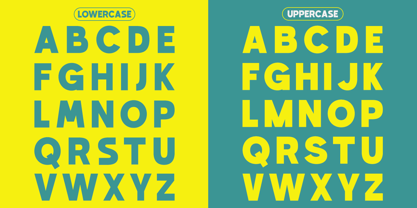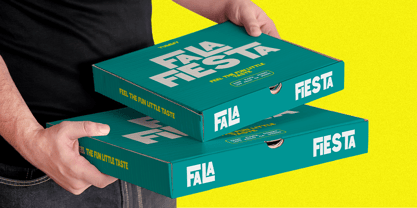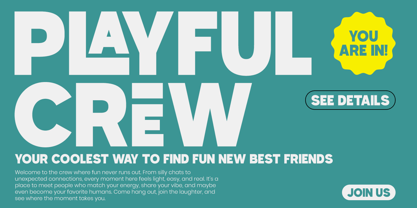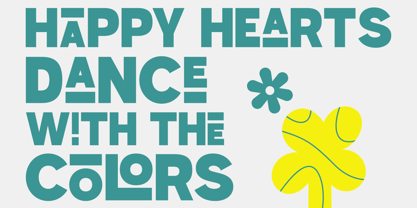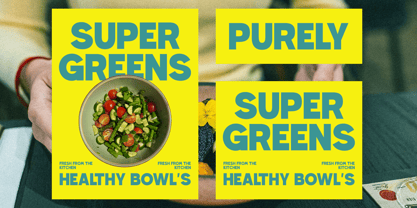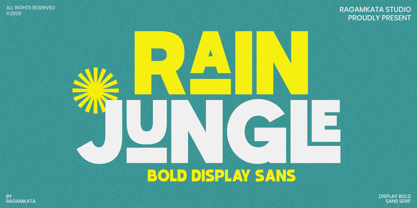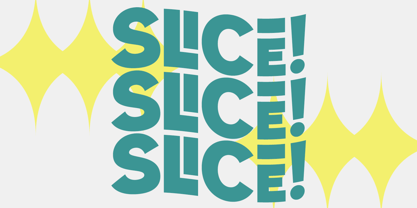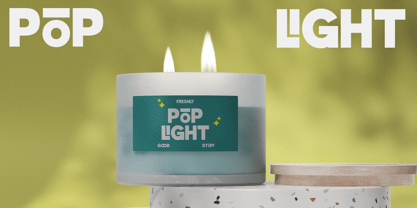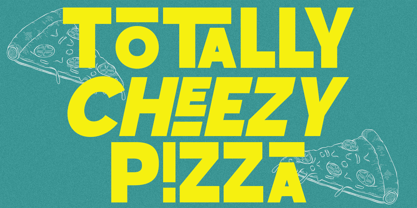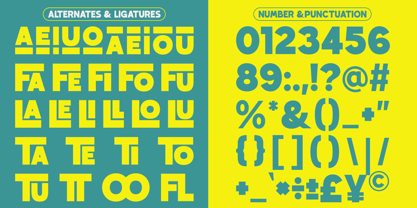
Rain Jungle
La familia tipográfica Rain Jungle fue diseñada por Yogiswhara Dio Prakoso Riadi y publicada por RagamKata. Rain Jungle contiene 2 estilos y opciones de paquete familiar. Más información sobre esta familia
Meet Rain Jungle, a bold display sans serif typeface built to make an instant visual impact. With its chunky geometric shapes, playful modern structure, and strong headline presence, this typeface delivers the perfect balance between bold branding energy and contemporary creativity. Its distinctive letterforms create a confident personality that feels fresh, dynamic, and impossible to ignore.
Perfect for logo design, branding projects, poster headlines, packaging, social media graphics, editorial layouts, advertising campaigns, merchandise, web design, and product promotions, Rain Jungle is designed for creators who need typography that commands attention. Its bold sans serif construction makes it especially effective for lifestyle brands, food packaging, creative campaigns, and expressive visual identities.
Whether you're building a modern brand, creating standout promotional materials, or crafting attention-grabbing headlines, Rain Jungle brings bold character and commercial versatility to every design project.
- Regular and Italic Style
- Stylistic Ligatures
- Stylistic Alternates